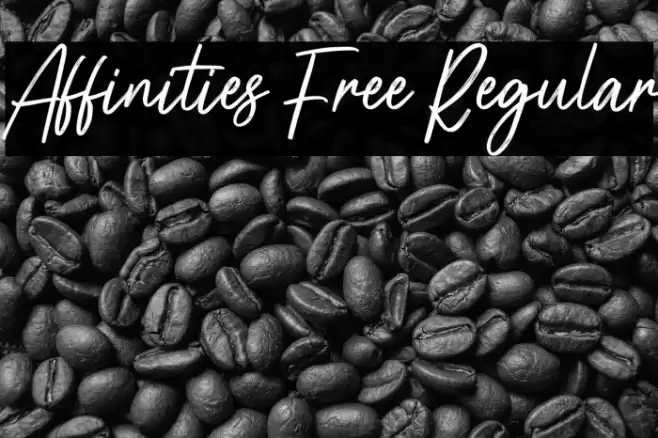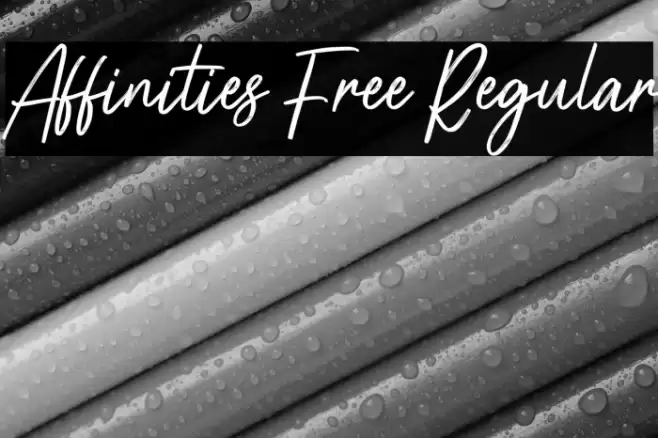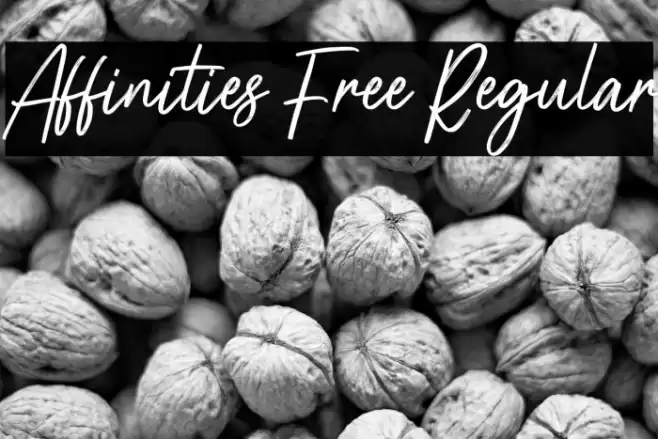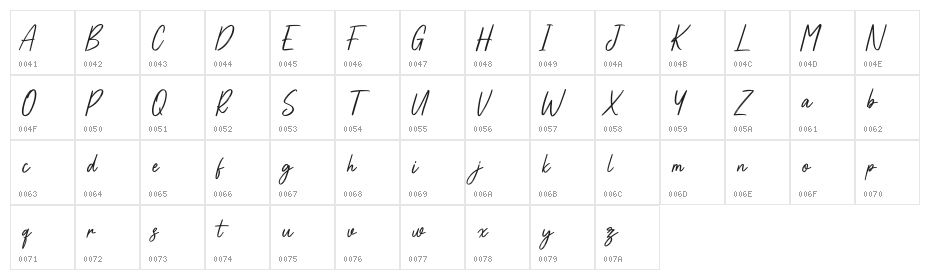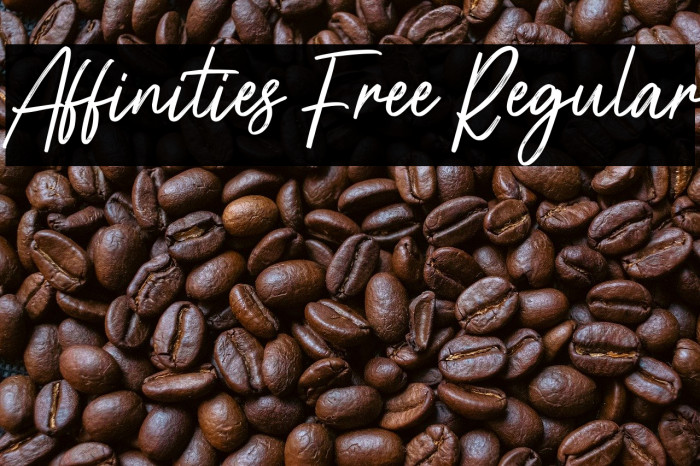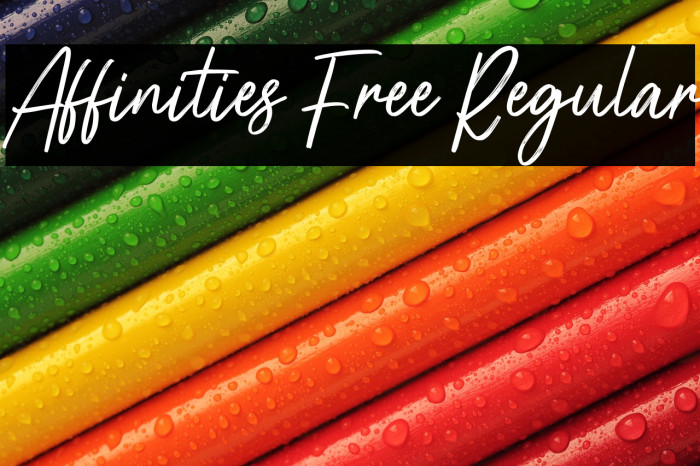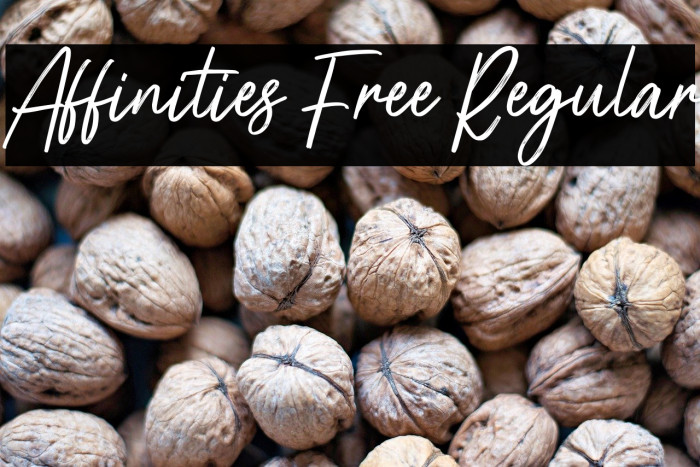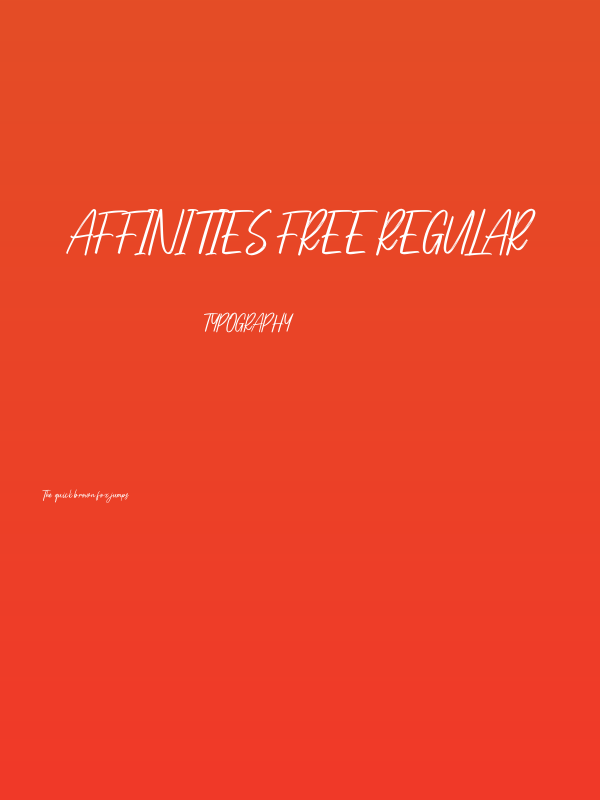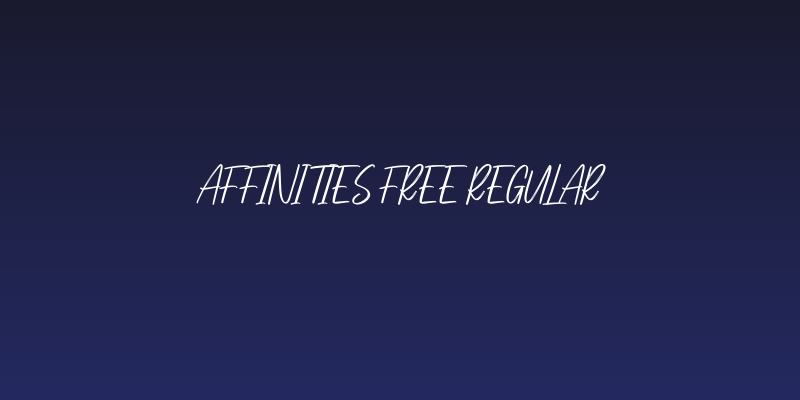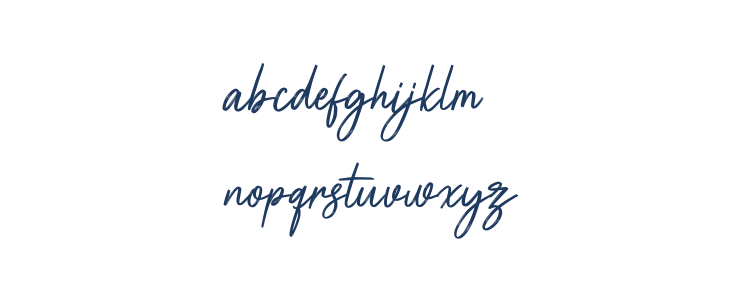
Affinities Free Regular Font
Affinities Free Regular Description
This font exudes a dynamic and energetic feel with its handwritten style, characterized by fluid, sweeping strokes and a natural, organic flow. The letters are slightly slanted, adding a sense of movement and personality. The uppercase and lowercase letters are well-balanced, with a consistent stroke width that maintains readability while offering a touch of elegance. The font's informal yet sophisticated appearance makes it suitable for creative and expressive projects. Its unique character is enhanced by the subtle variations in line thickness, which add depth and interest without compromising clarity.
A dynamic handwritten font with fluid, sweeping strokes and a natural flow from Regular fonts.
- Font: Affinities Free Regular
- Proposed Projects: Ideal for branding, invitations, greeting cards, and creative projects that require a personal touch.
- Use Case: Logos, Invitations, Greeting cards